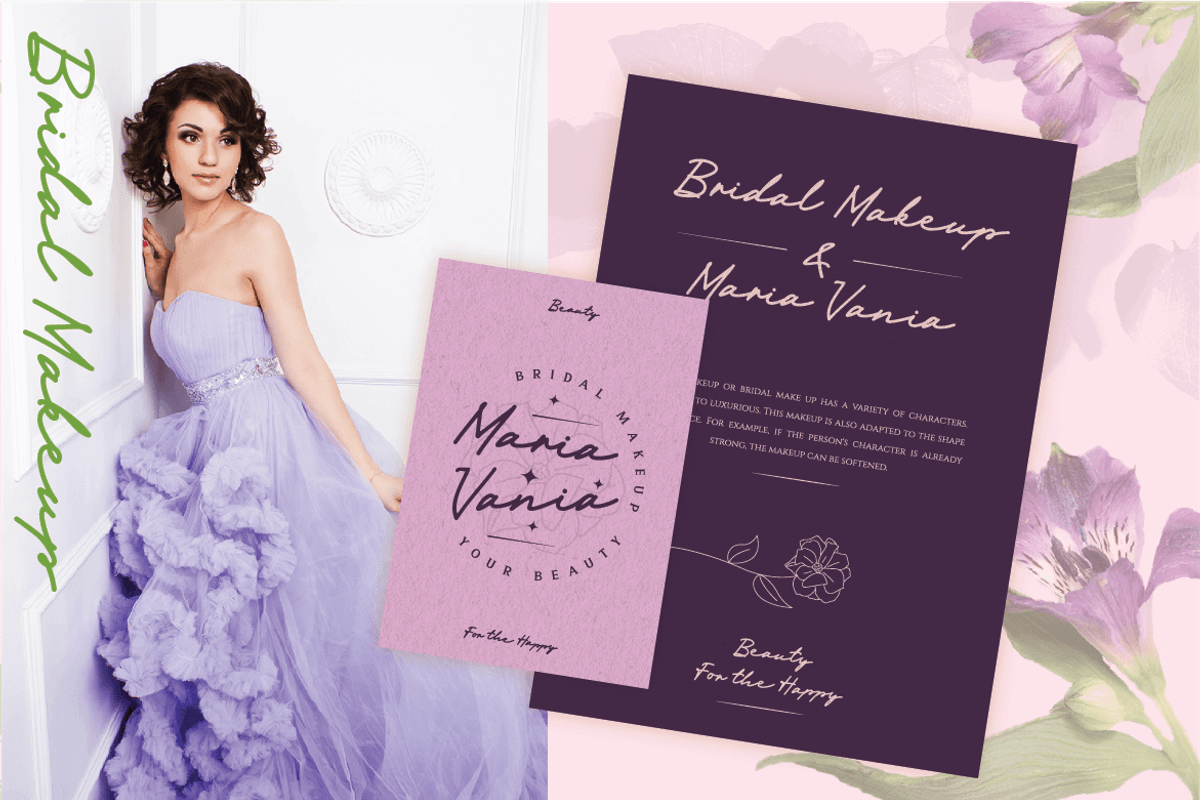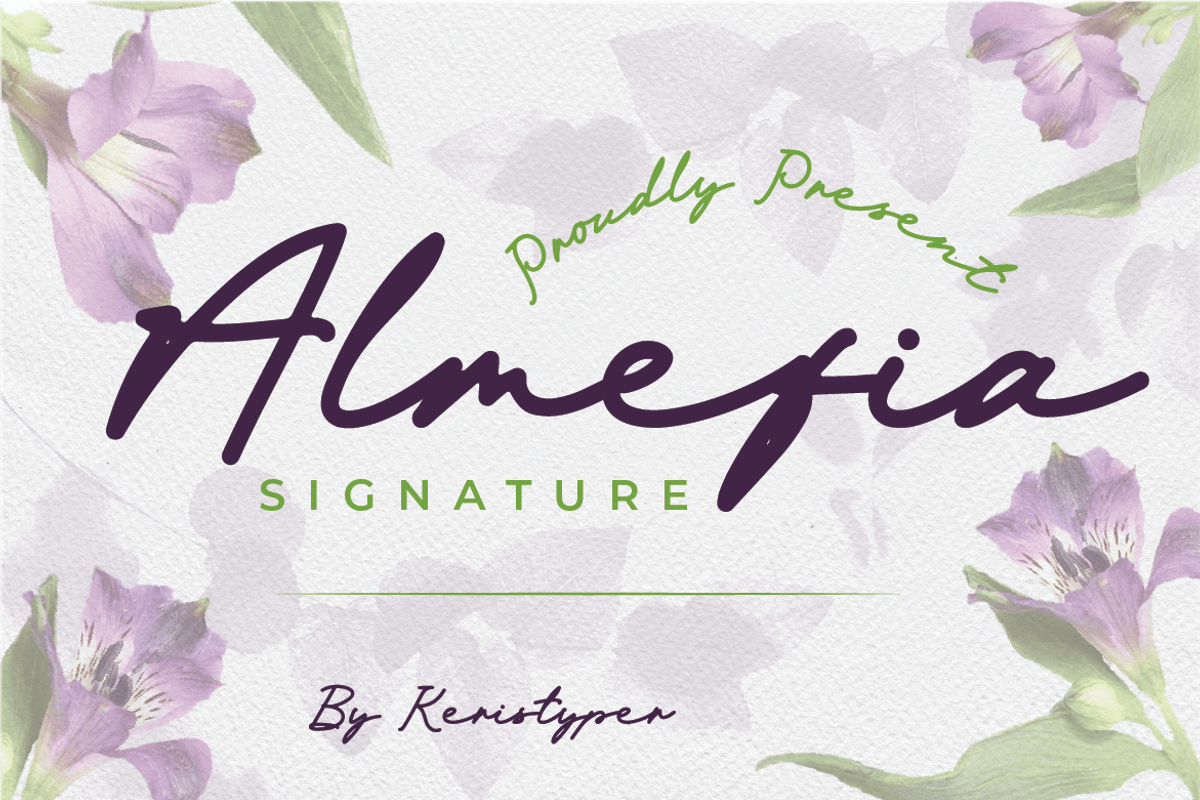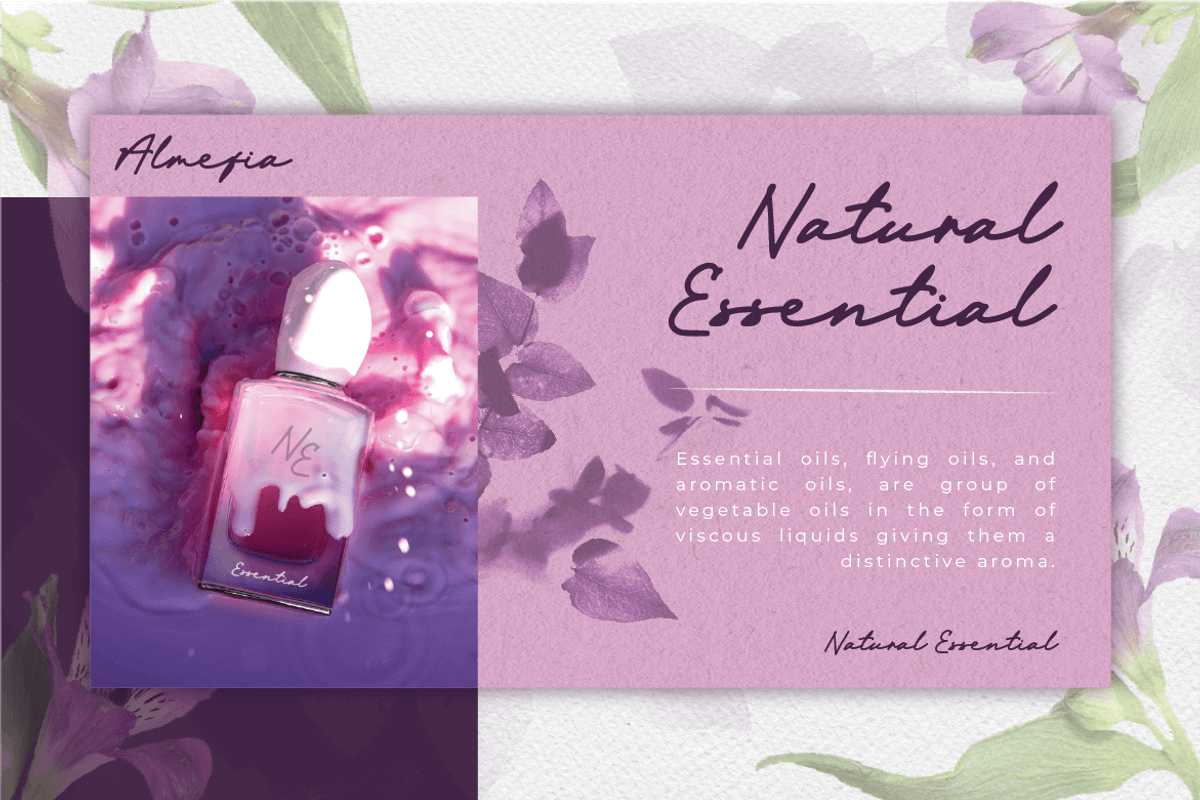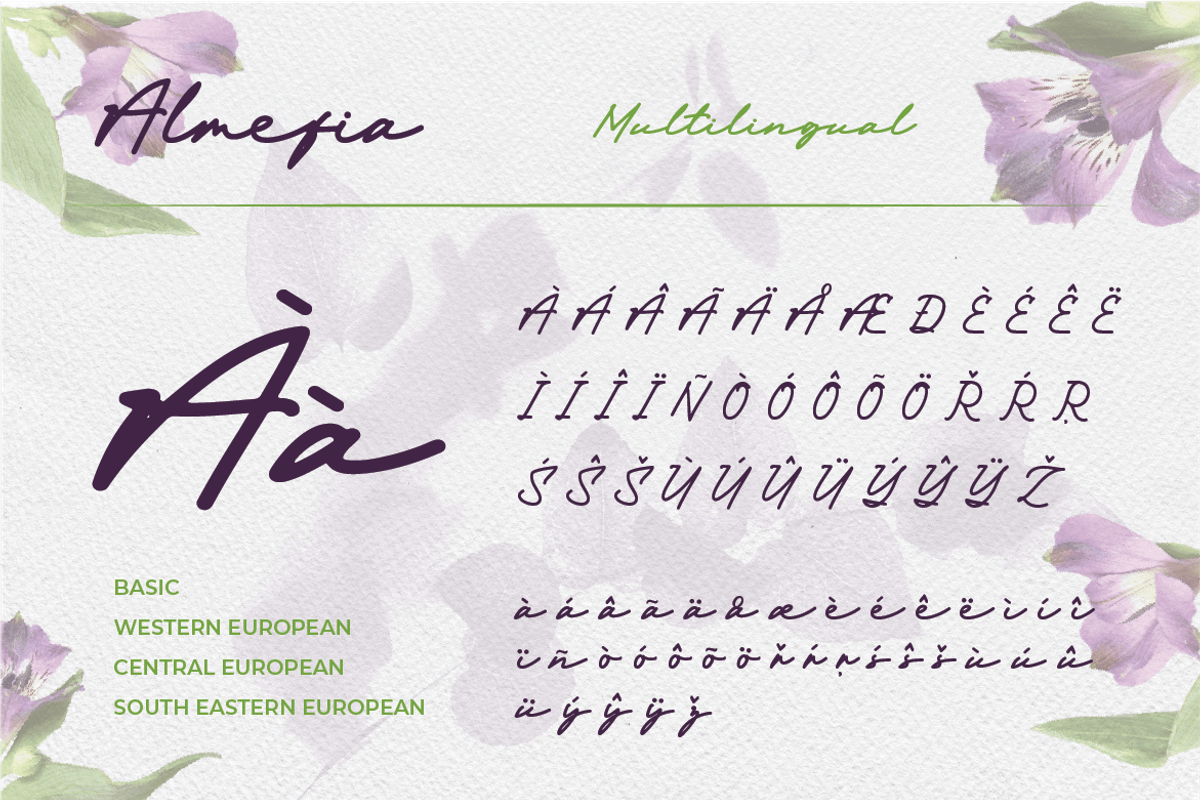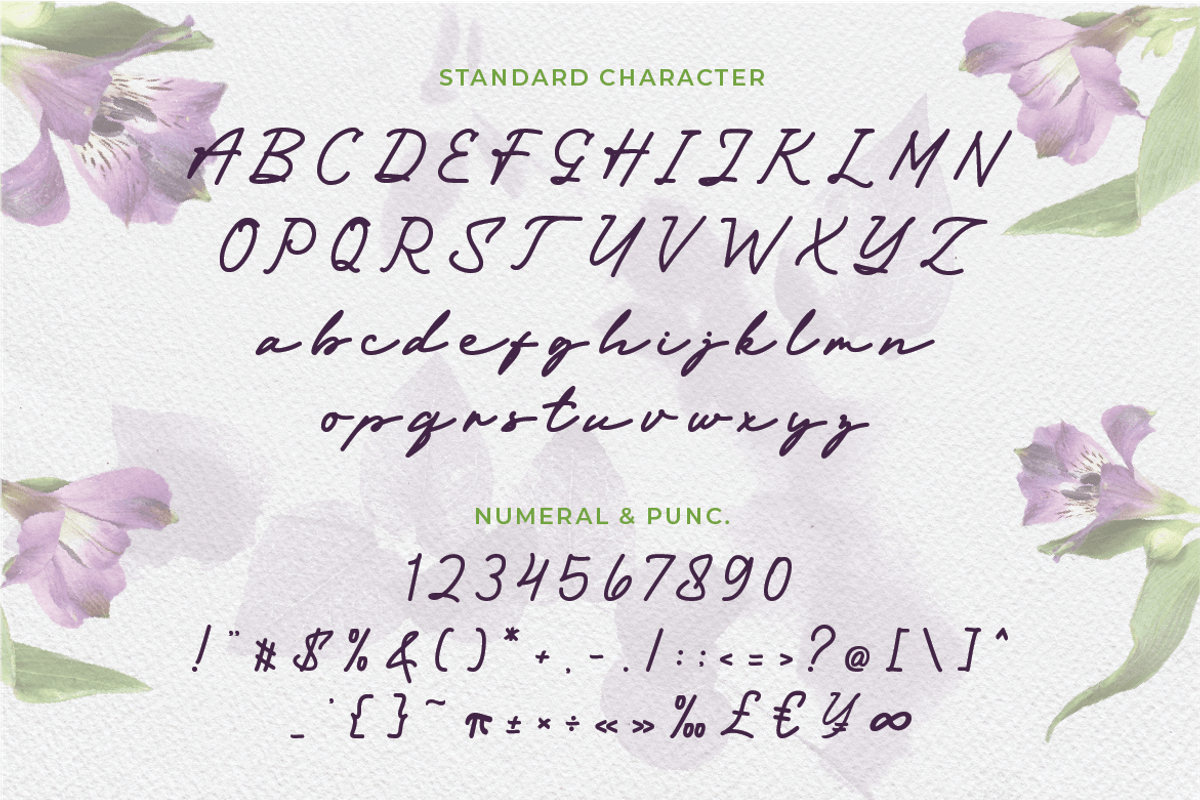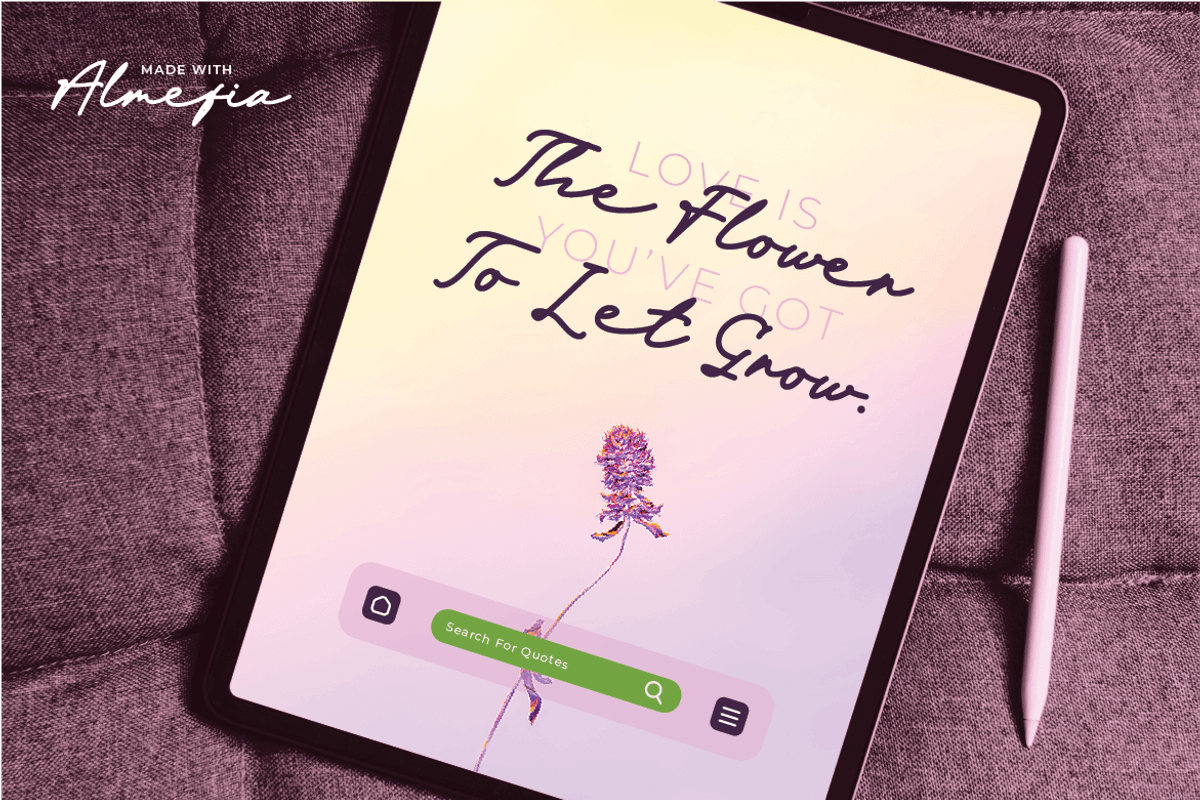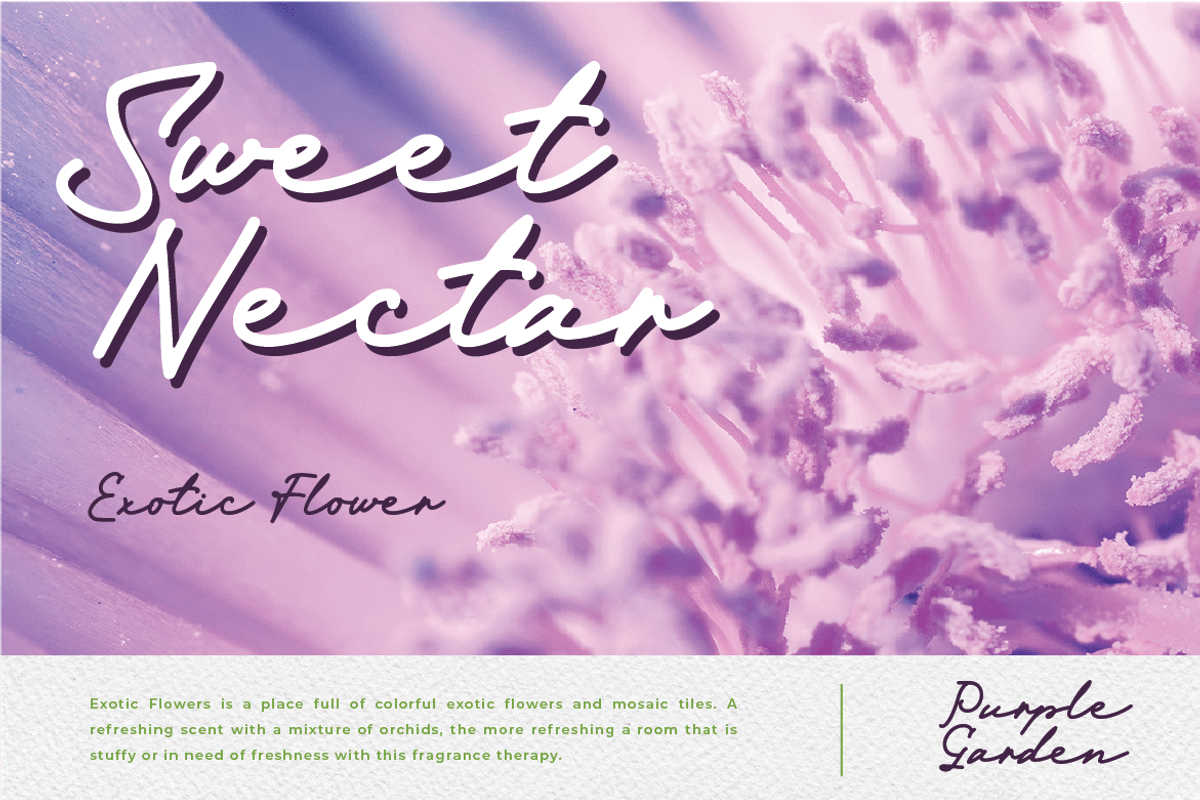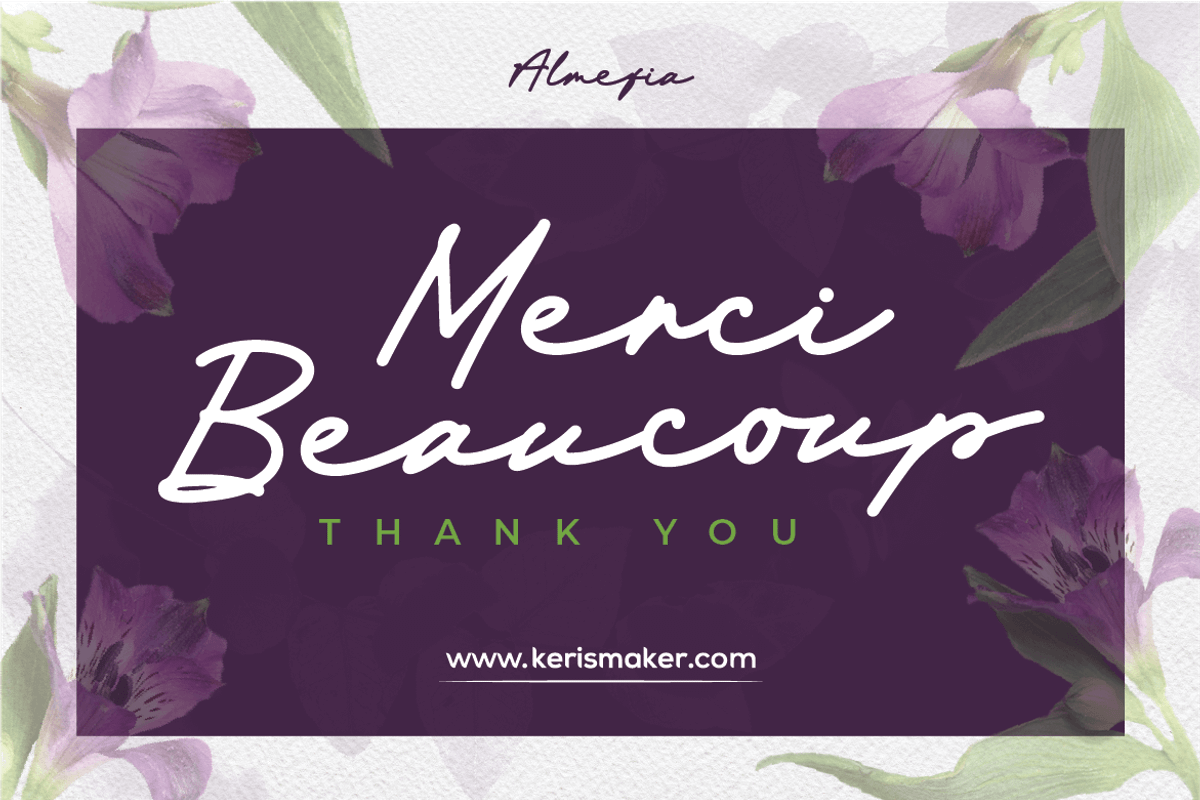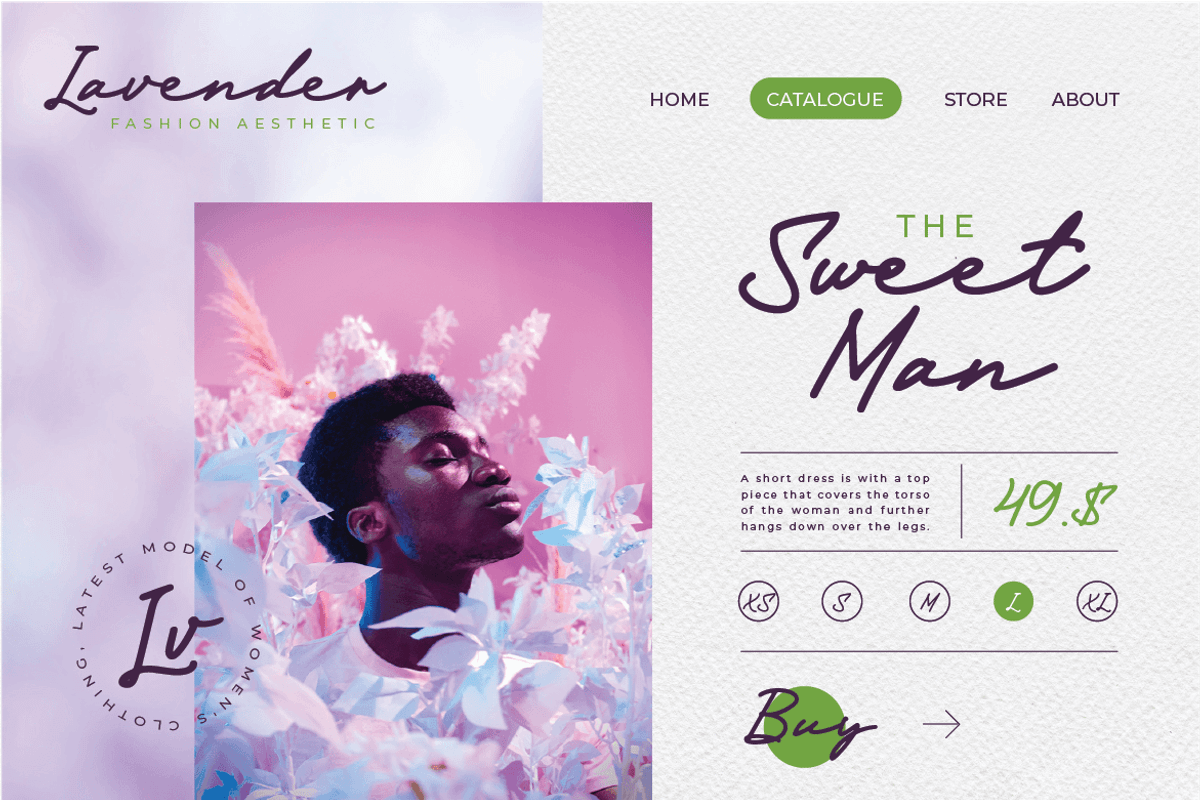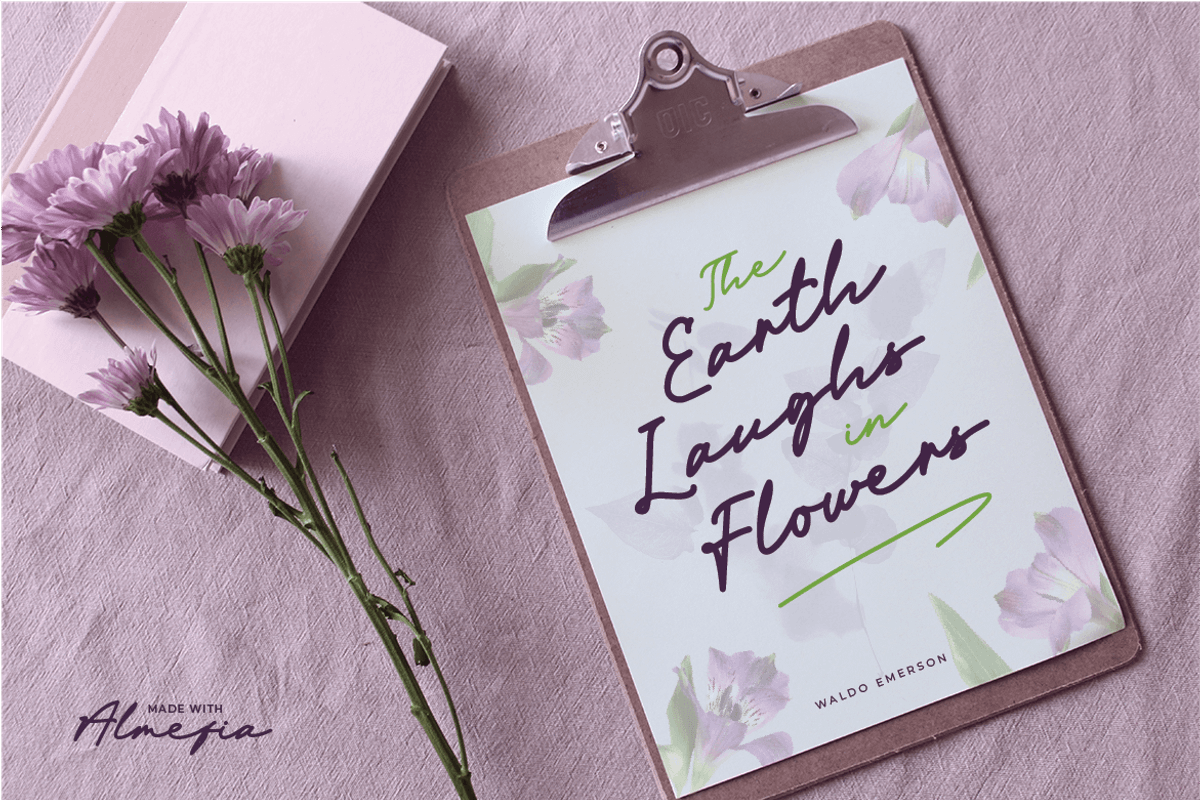
Almefia
Introducing Althena Classic Signature Font. This font was created with an authentic handwriting pen. This font is perfect for fashion brands, wedding invitations, business cards, logo brands, signatures, and then calligraphy.
Althena Font multilingual support: Afrikaans, Albanian, Catalan, Danish, Dutch, English, Estonian, French, Finnish, German, Icelandic, Indonesian, Italian, Malay, Norwegian, Portuguese, Spanish, Swedish, Zulu, and many more.
- Standard, Multilingual & Ligature